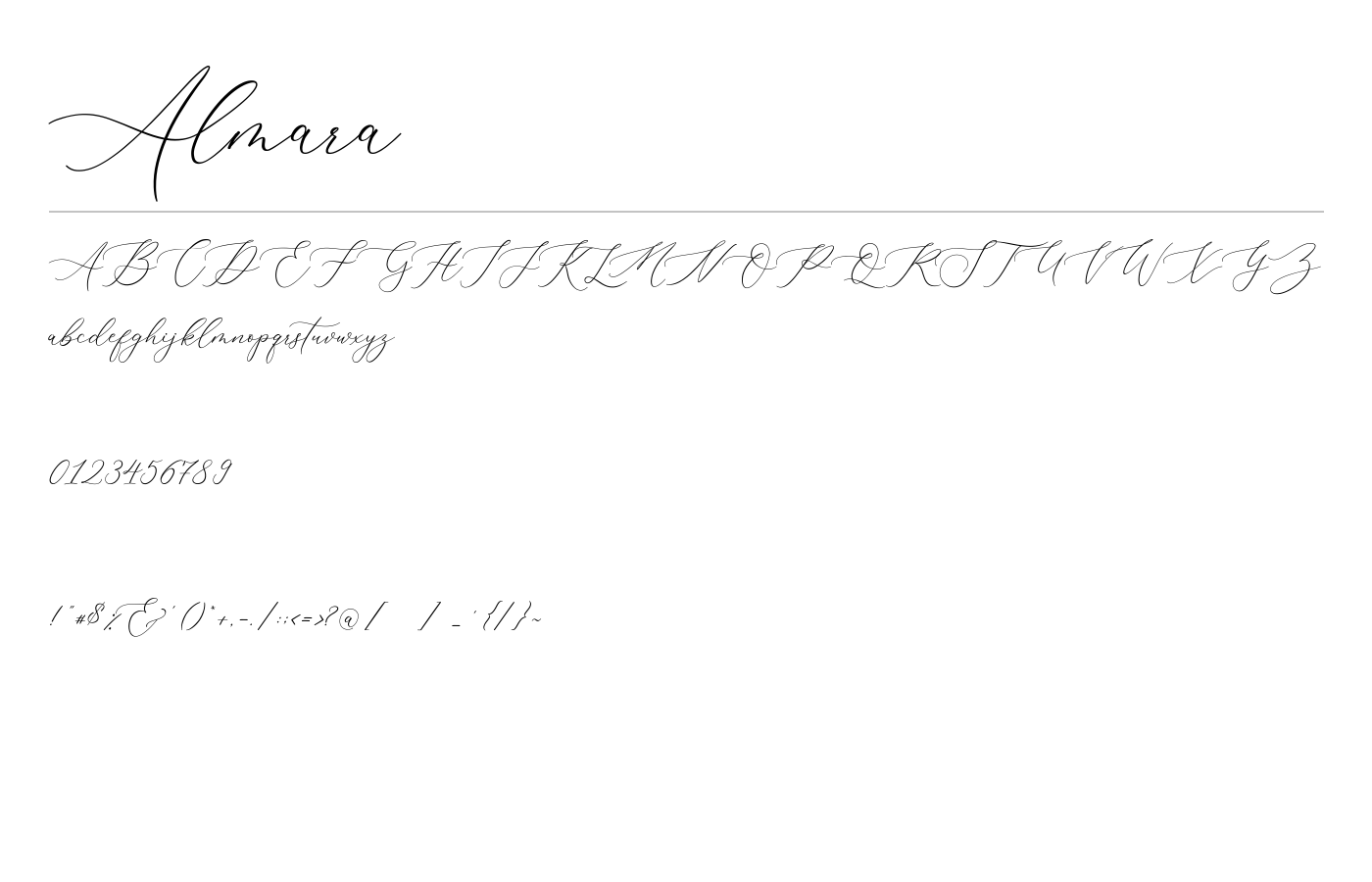
Almara is a delicate and elegant script font characterized by its thin, flowing lines and graceful letterforms. With its refined strokes and sophisticated style, it conveys a sense of luxury and romance, making it perfect for wedding invitations, high-end branding, and editorial design. Its airy and stylish appearance works best in large sizes where its intricate details can truly shine.
Almara Font
About Almara Font